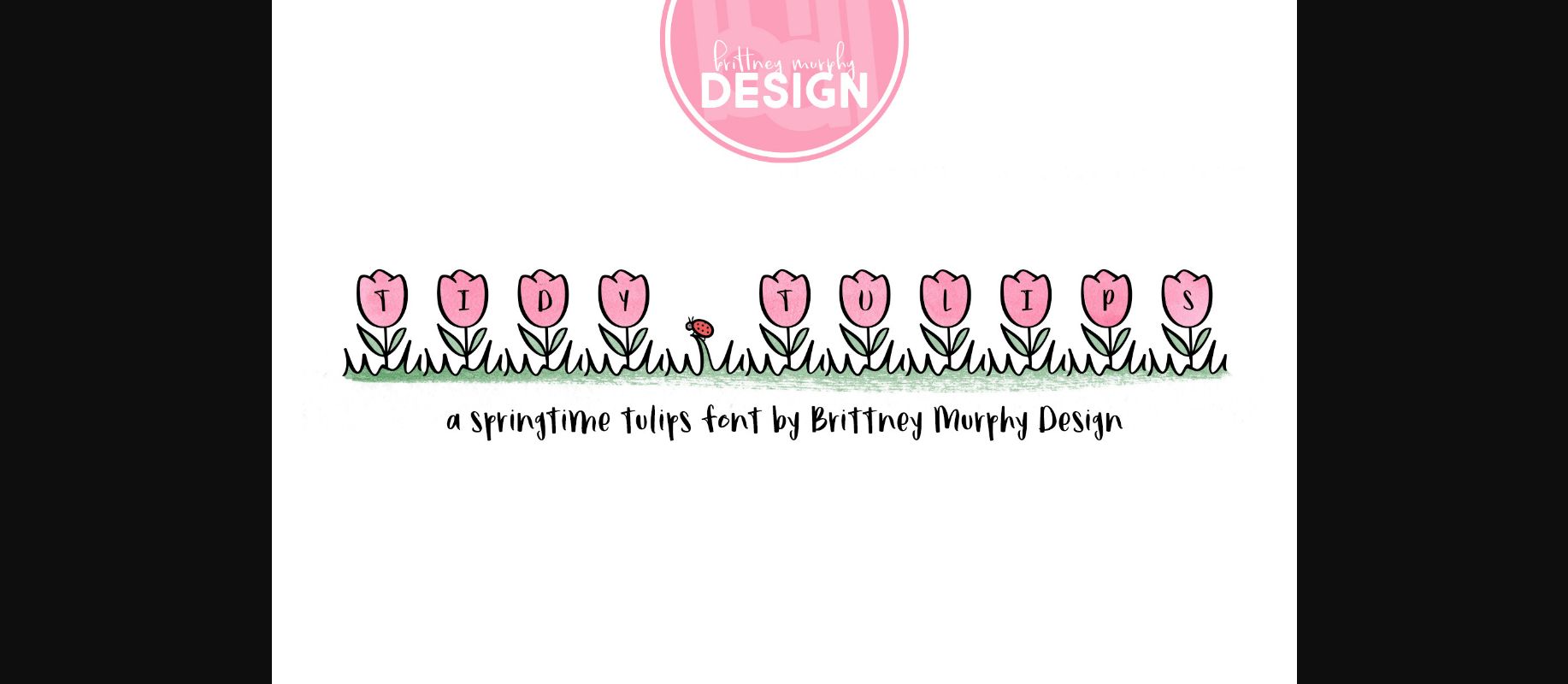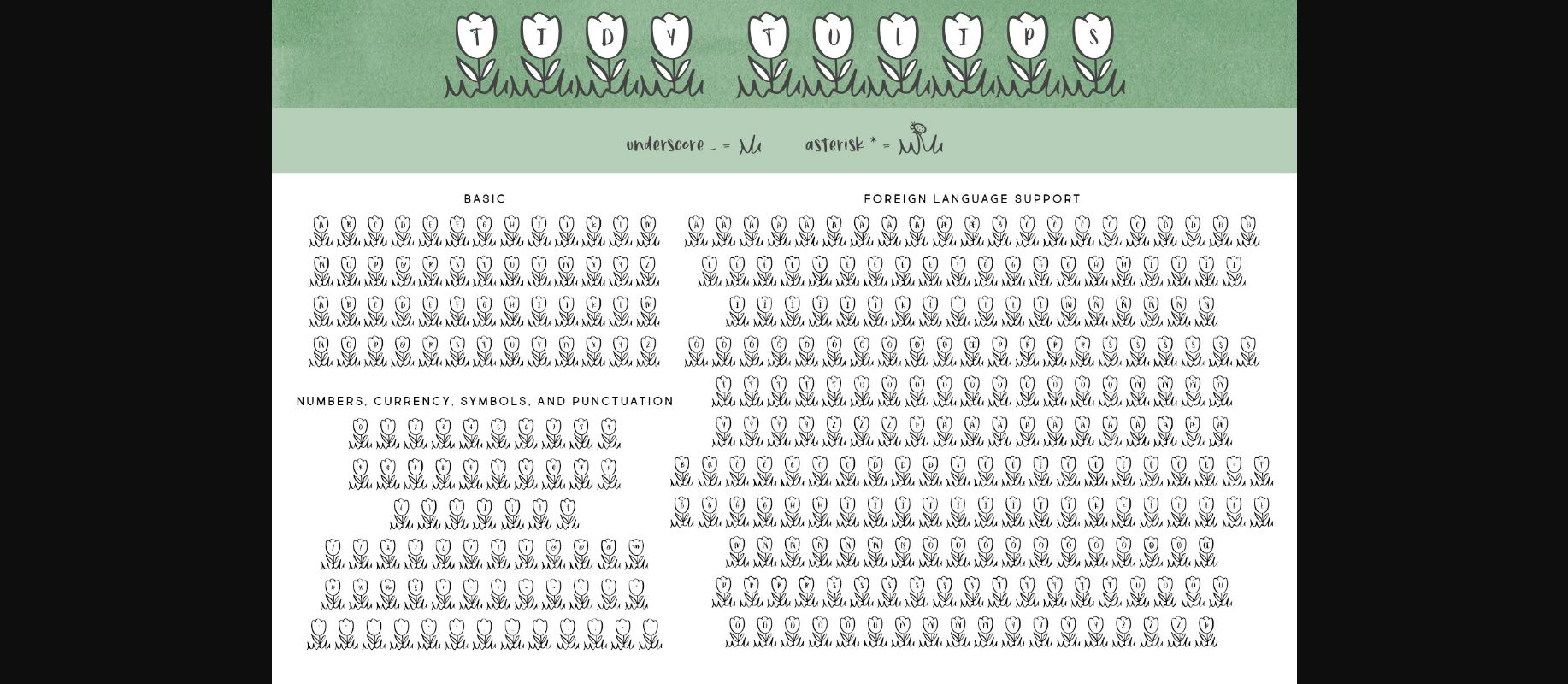
About Tidy Tulips Font
The Tidy Tulips font is a sweet picture font featuring tulips. Great for headlines for all your floral or springtime projects.
Special characters:
Use the asterisk (*) for a ladybug on a blade of grass.
Use the underscore (_) for a blank space with grass.